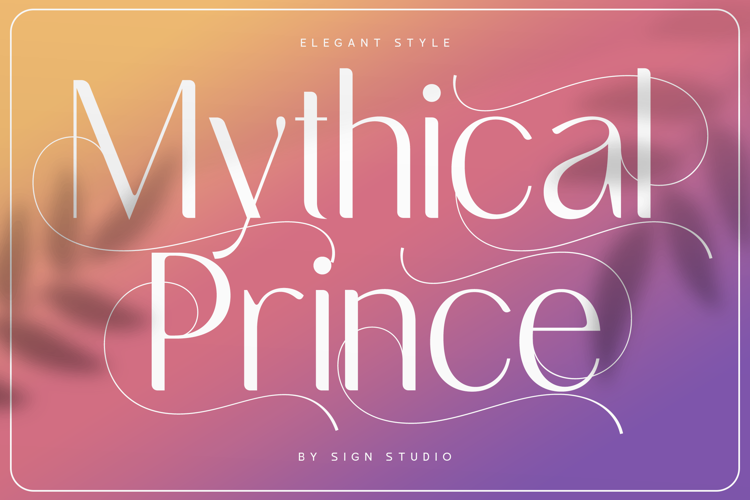
Mythical Prince Font
About Mythical Prince Font
Mythical Prince is a beautiful and smooth sans serif font created by a romantic and lovely look. It is perfect for greeting cards, wedding invitations, posters, logotypes, product branding, and much more.This font is PUA encoded which means you can access all of the glyphs and swashes with ease!